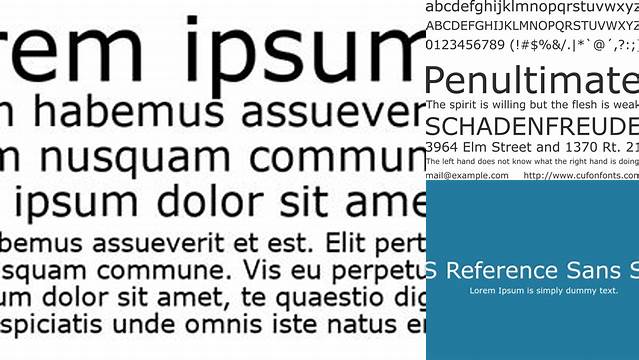
What is MS Reference Sans Serif Font?
Let's talk about the MS Reference Sans Serif font. This typeface is a clean, legible, and modern sans-serif font that comes bundled with Microsoft Office. It's designed to be highly readable, making it a popular choice for a wide range of applications, from body text in documents to user interfaces and web design. Its simple, geometric shapes give it a contemporary feel, ensuring it remains relevant in today's design landscape. Its neutrality is one of its most potent features, allowing it to blend seamlessly into various projects without overpowering the design's overall aesthetic.
Key Characteristics of MS Reference Sans Serif
The beauty of MS Reference Sans Serif lies in its simplicity and functionality. Here’s a breakdown of its standout characteristics:
- Readability: This font is engineered for excellent readability, even at small sizes. This makes it ideal for on-screen use and long-form text.
- Clean Design: With its clean, uncluttered design, MS Reference Sans Serif offers a modern and professional look. No distracting serifs here!
- Versatility: Its neutral appearance makes it incredibly versatile. It works well in a variety of contexts, from formal reports to casual blog posts.
- Consistency: The consistent stroke weight and letterforms ensure a uniform appearance, contributing to its overall polished look.
- Scalability: MS Reference Sans Serif scales well, maintaining its legibility and clarity whether you're working on a small mobile screen or a large poster.
These characteristics make MS Reference Sans Serif a solid choice for designers and content creators alike. Whether you're drafting a professional email or designing a website, this font offers a reliable and aesthetically pleasing option.
Why Choose MS Reference Sans Serif?
So, why should you specifically choose the MS Reference Sans Serif font? Well, there are plenty of compelling reasons. For starters, its widespread availability and compatibility make it an accessible option for most users. If you're working on a project that will be viewed on various devices and operating systems, you can be confident that this font will render correctly. Its readability is a major advantage, particularly for projects that involve a lot of text. Readers will appreciate the clear and easy-to-follow letterforms, which can enhance their overall experience and engagement. Additionally, the font's neutral design makes it a safe bet for projects where you want to maintain a professional and understated look. It won't clash with other design elements or distract from your message.
Benefits of Using MS Reference Sans Serif
Let’s dive a little deeper into the specific benefits of using MS Reference Sans Serif:
- Enhanced Readability: As mentioned earlier, this is a huge plus. Readable content keeps your audience engaged and reduces eye strain.
- Professional Appearance: The clean lines and modern design lend a professional touch to any project.
- Cross-Platform Compatibility: You can count on this font to look consistent across different devices and operating systems.
- Easy to Integrate: It plays well with other fonts and design elements, making it easy to incorporate into your existing workflow.
Conclusion: MS Reference Sans Serif and Beyond
The MS Reference Sans Serif font is a solid choice for anyone seeking a reliable, readable, and versatile typeface. While it may not be the most exciting or groundbreaking font out there, its simplicity and functionality make it a valuable asset for a wide range of projects. Just remember to obtain it legally and respect the licensing terms. And if you can't find it, don't worry – there are plenty of excellent alternatives to choose from. Happy designing, guys!